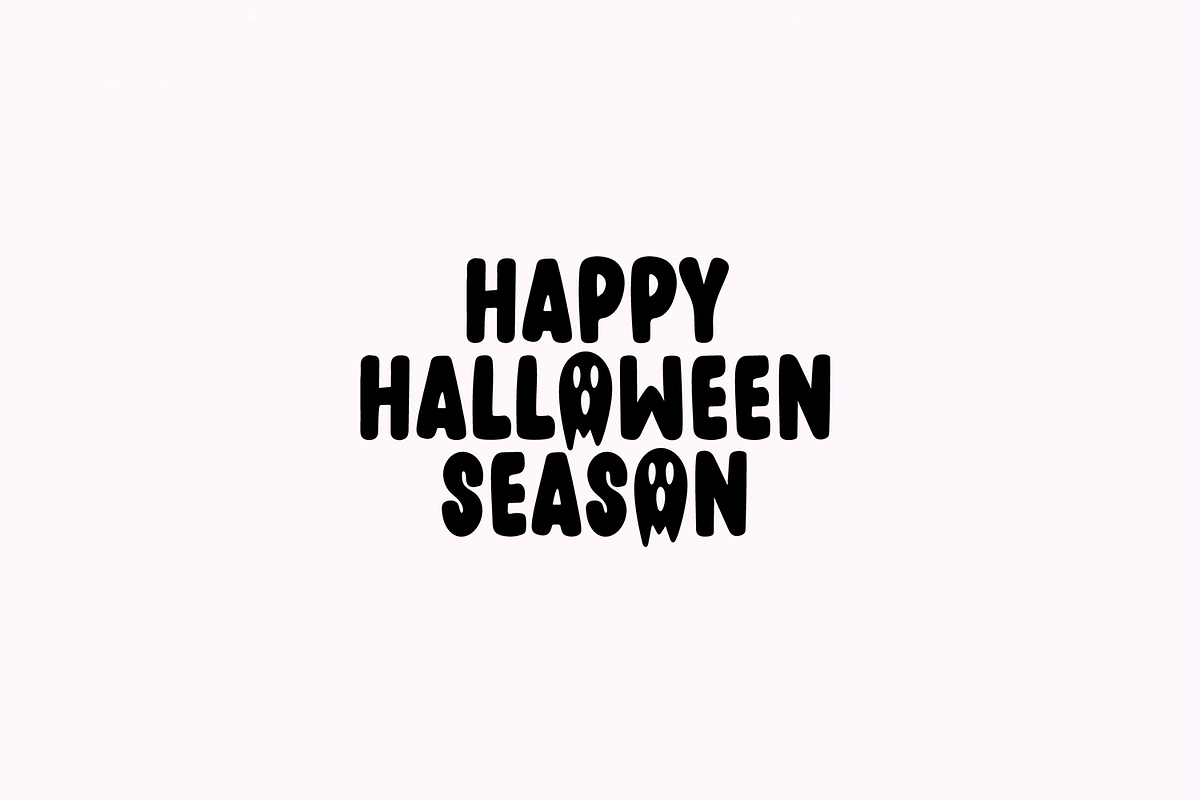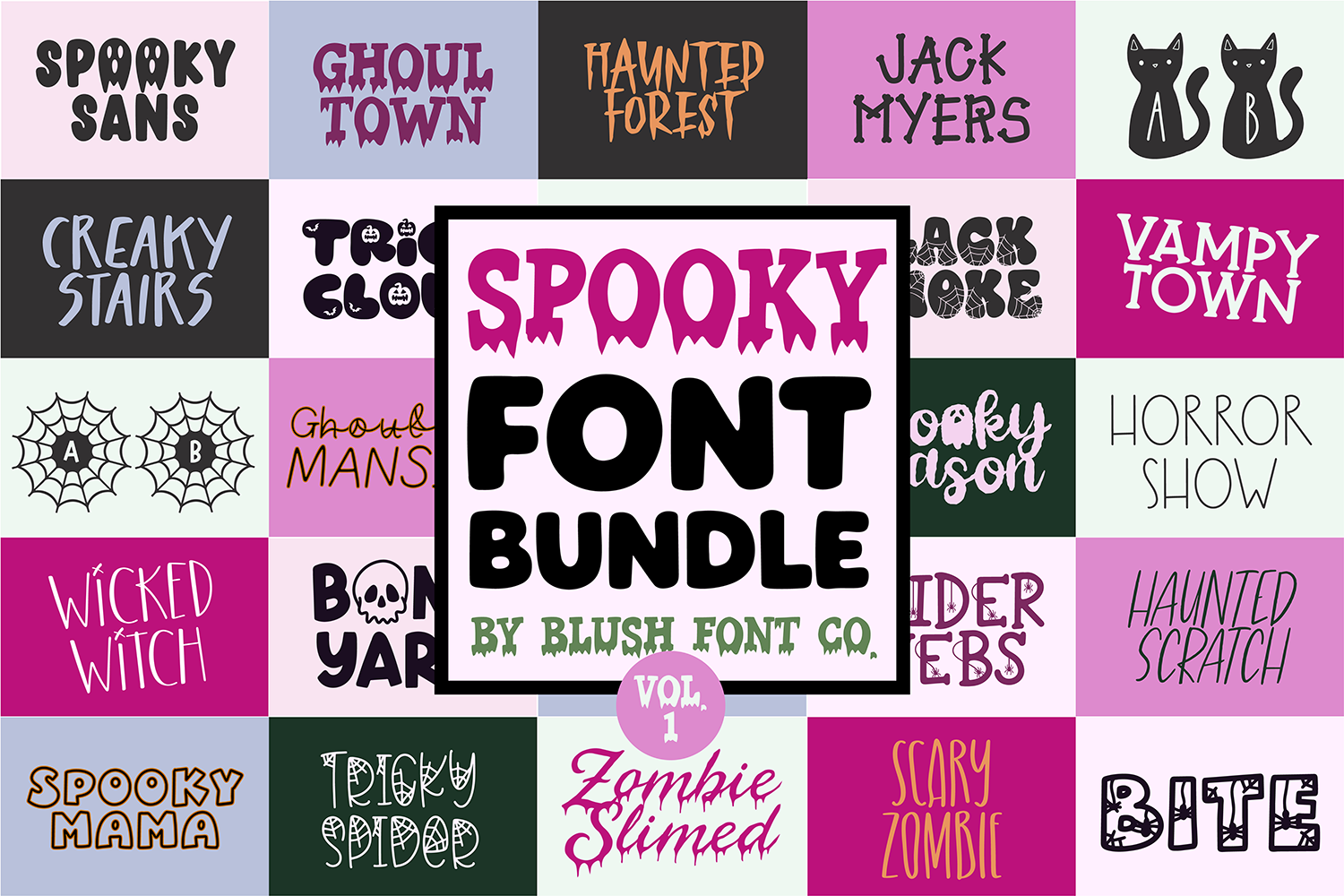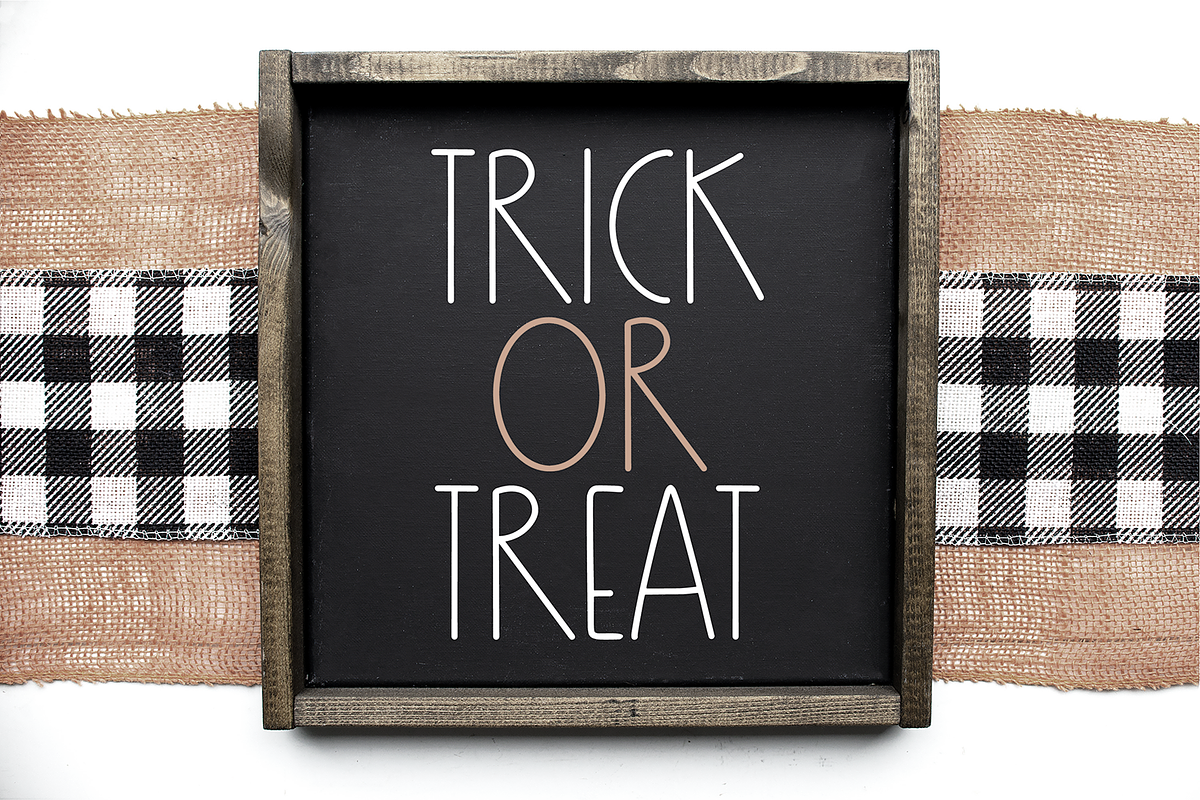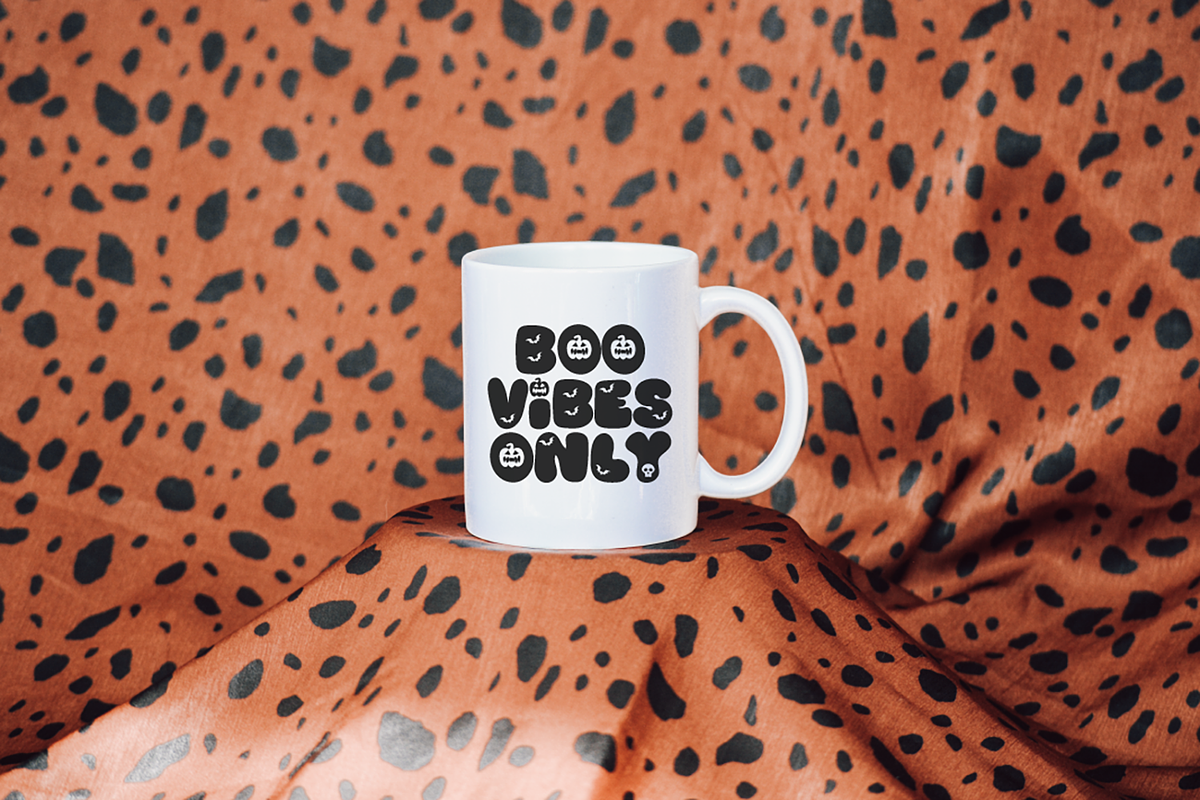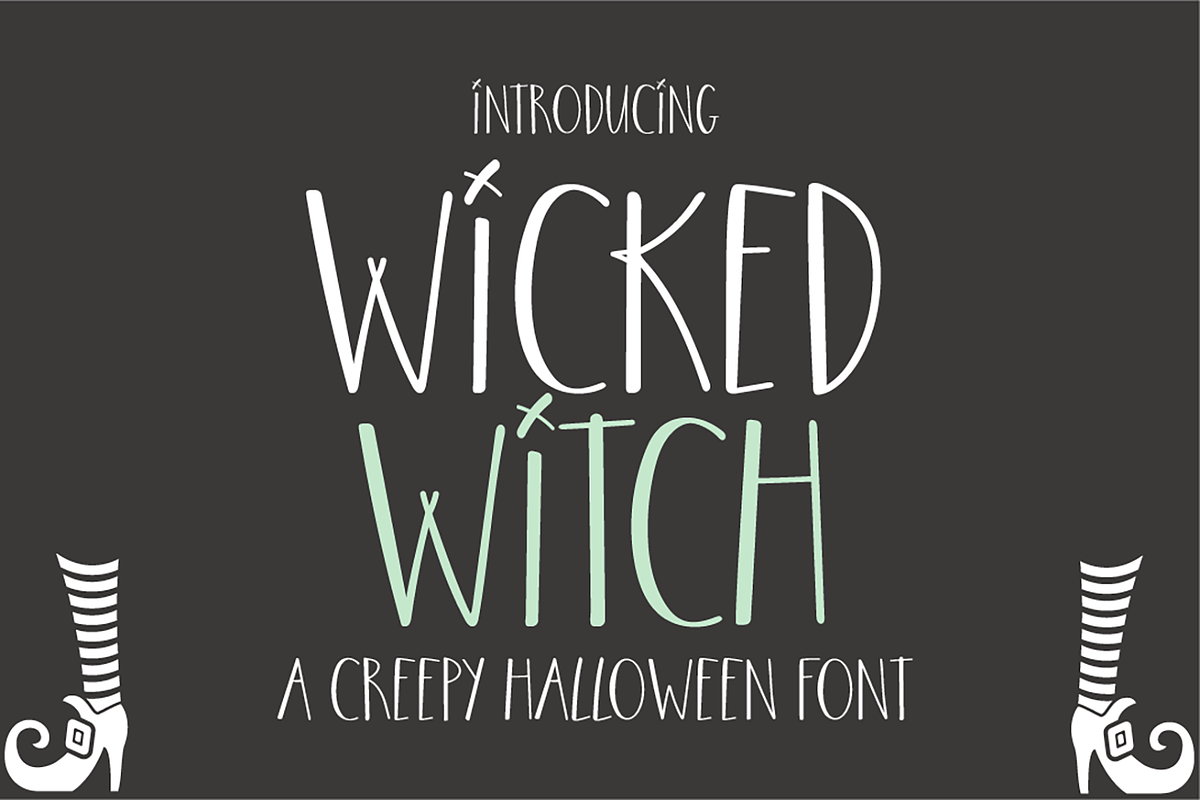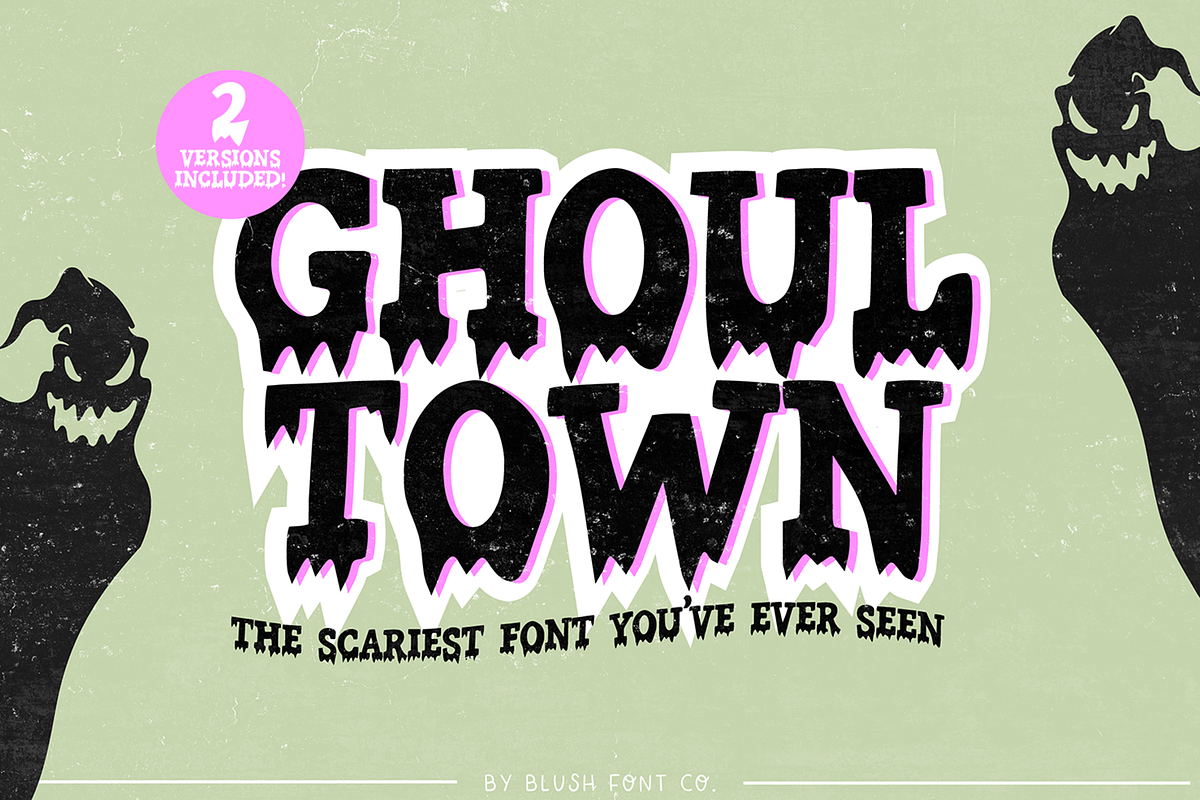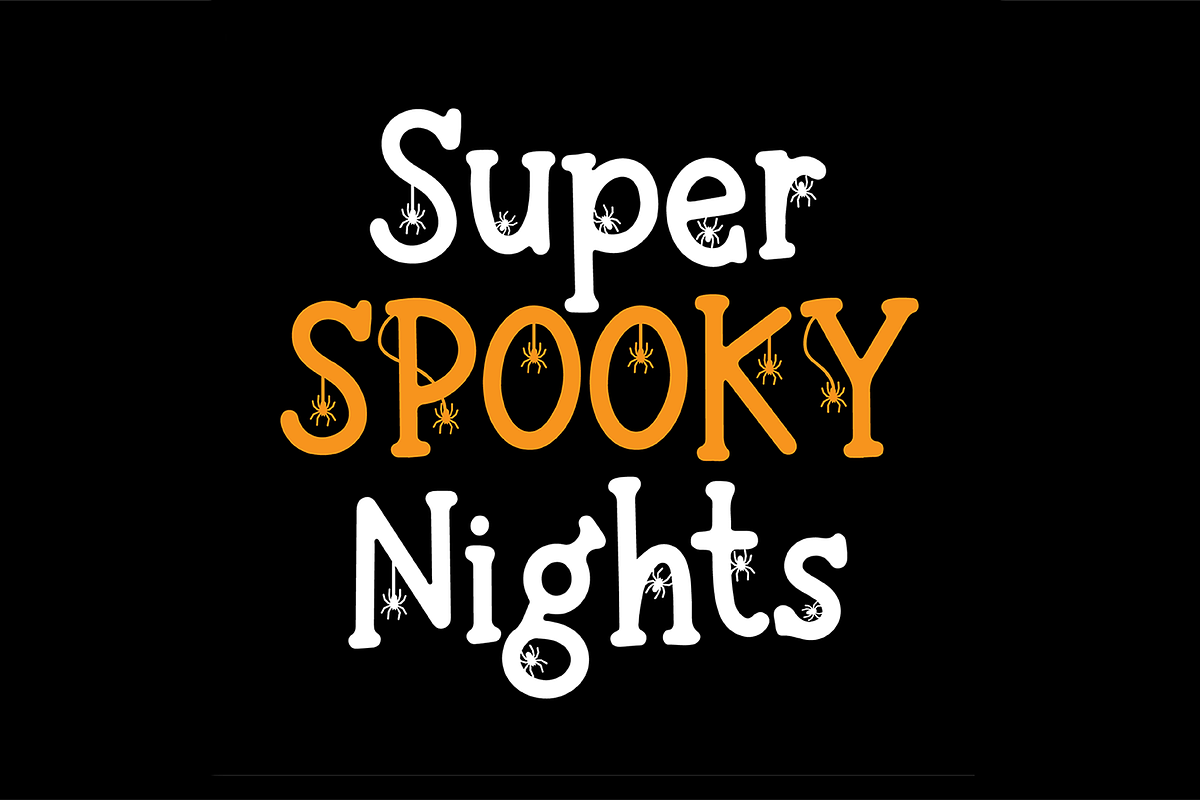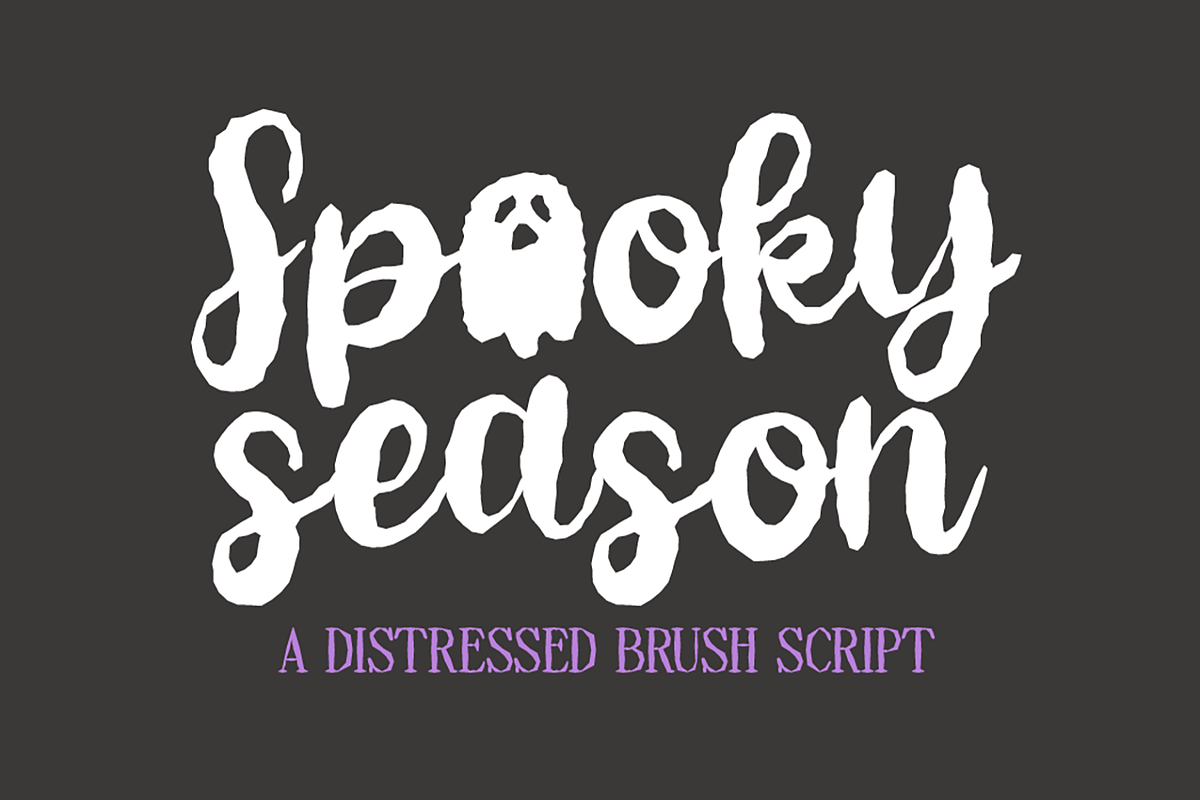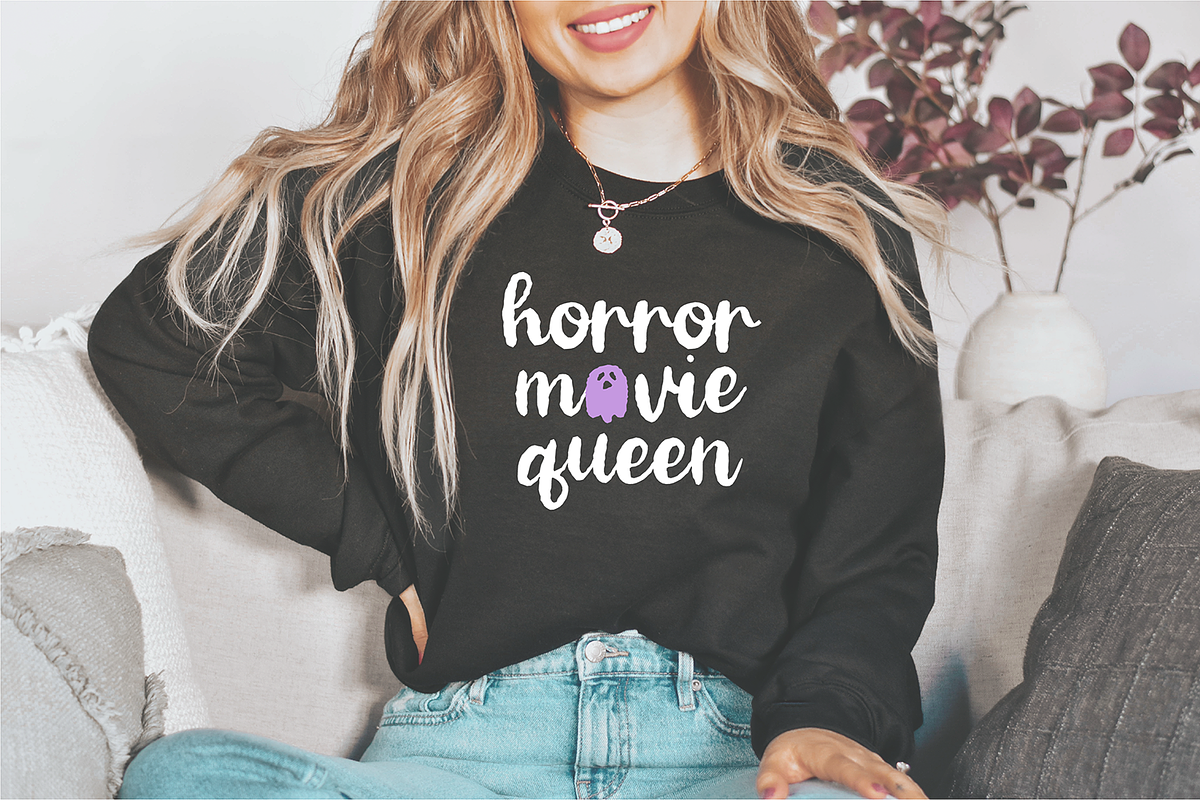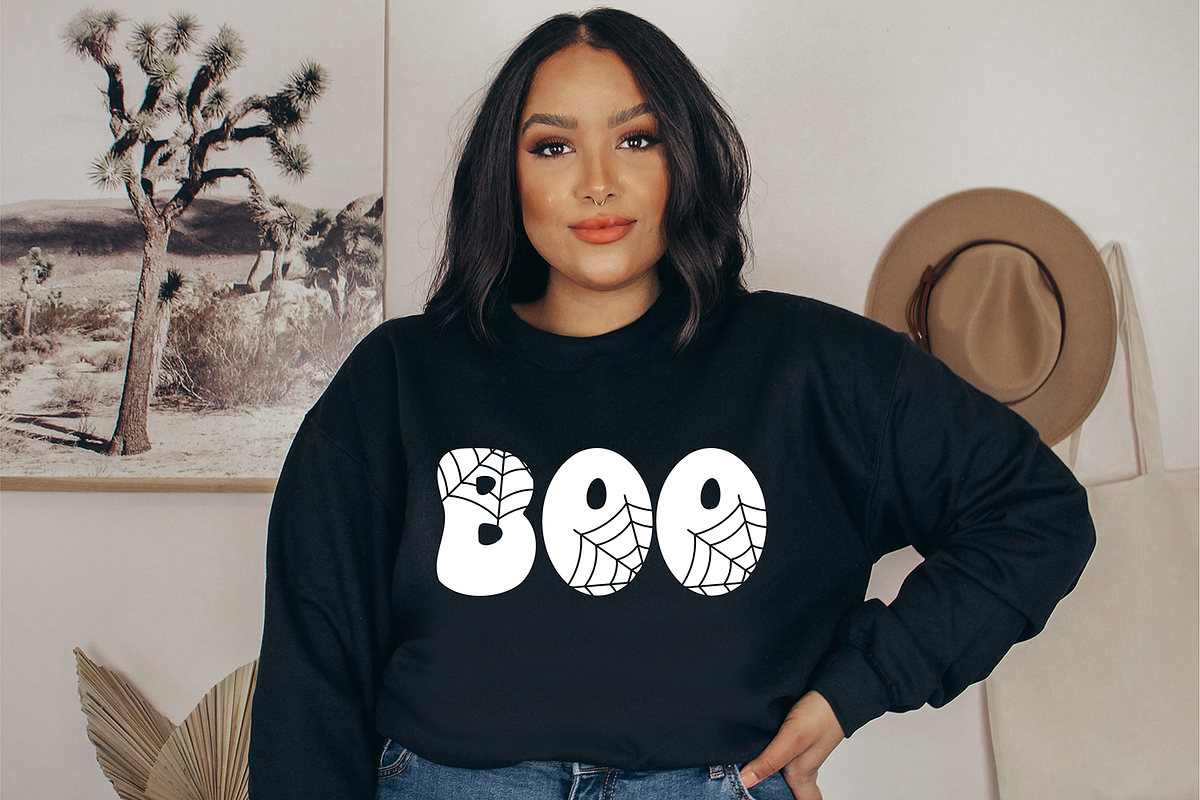
Big Spooky Halloween Font Bundle
BIG SPOOKY HALLOWEEN Font Bundle! 25 FONTS. A mix of some new scary fonts and old favorites.
Fonts included: Bite Black Cat Monogram Black Smoke Bone Yard Creaky Stairs Ghoul Town Ghoulish Mansion Hello October Haunted Forest Haunted Scratch Horror Show Plain Jack Myers Bones (Bold) Redrum Scary Goblin Scary Zombie Spider Webs Spiderweb Font Spooky Mama Spooky Sans Spooky Season Trick Cloud Tricky Spider Vampy Town Wicked Witch Zombie Slimed
This Halloween font bundle is packed with spooky, playful, and vintage-inspired fonts perfect for all your fall and Halloween projects. Use them for Cricut crafts, Halloween shirts, sweatshirts, signs, stickers, invitations, party decor, sublimation designs, social media graphics, and more. With a mix of witchy, creepy, cute, and classic Halloween styles, this spooky font bundle is an easy go-to for seasonal crafting, DIY projects, and commercial designs.